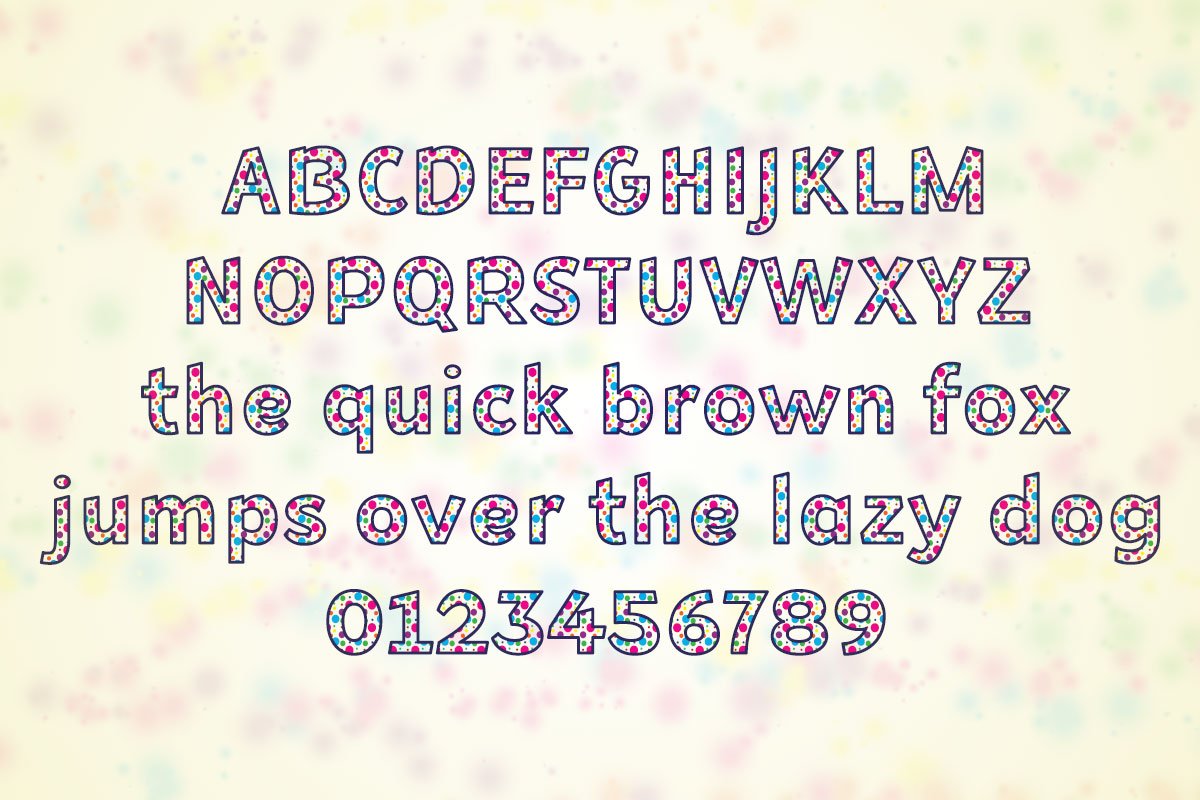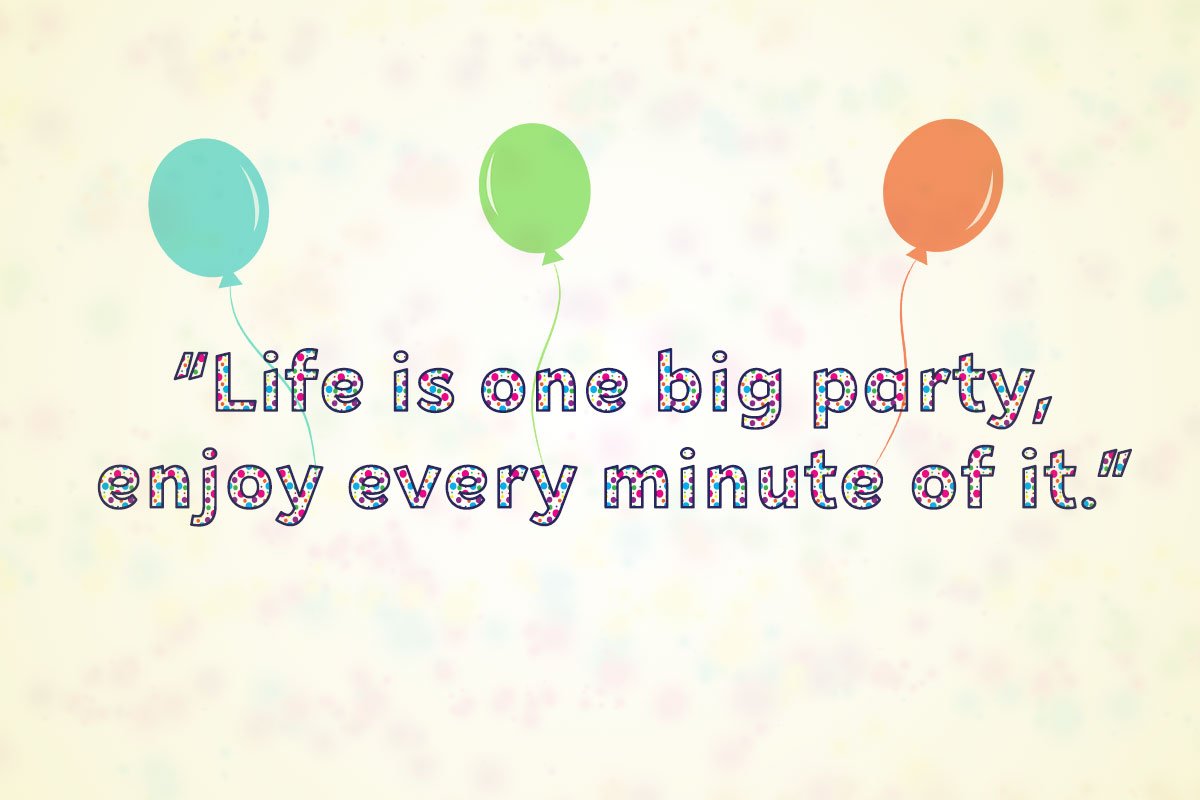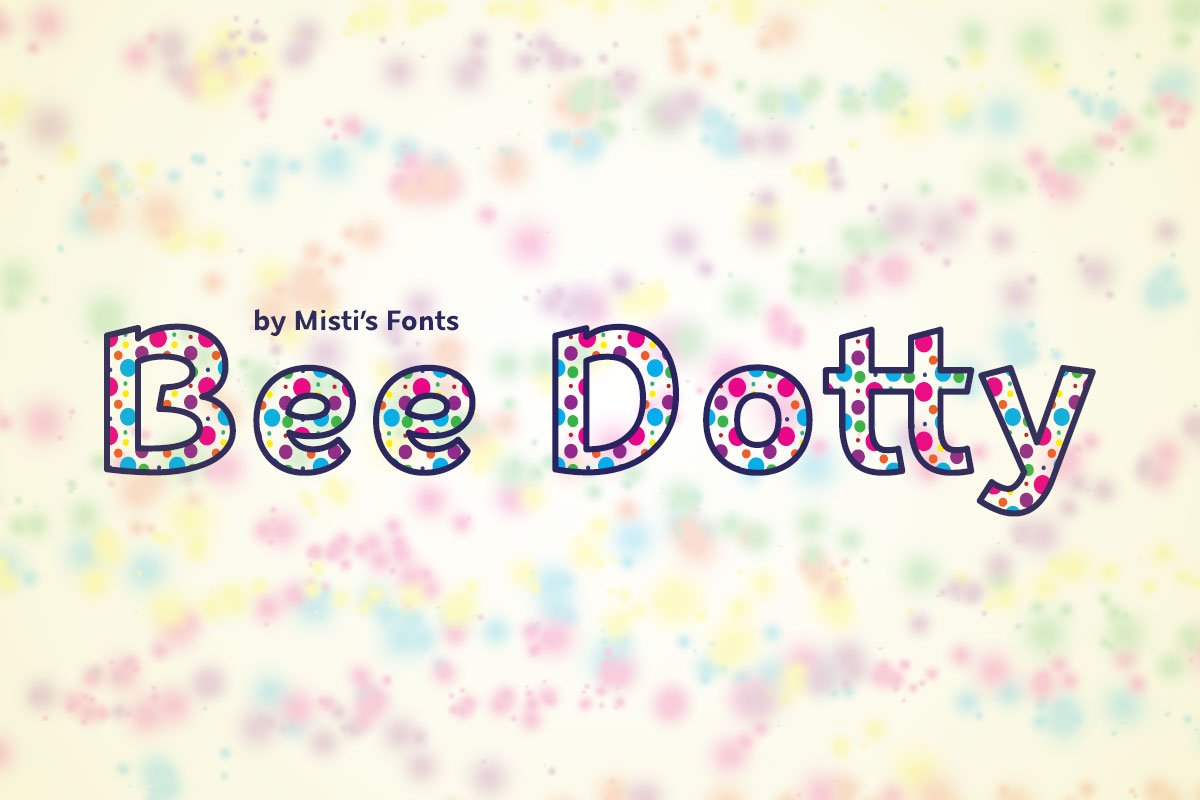
Bee Dotty
Bee Dotty is an incredibly cool and jolly color font. It embodies playfulness and authenticity and is the perfect choice for any children activity or school project. Add it confidently to your projects, and you will love the results.
Special Features
However, if you do not have access to any of the supported software, then the font will appear like this:
Example: ABCabc123